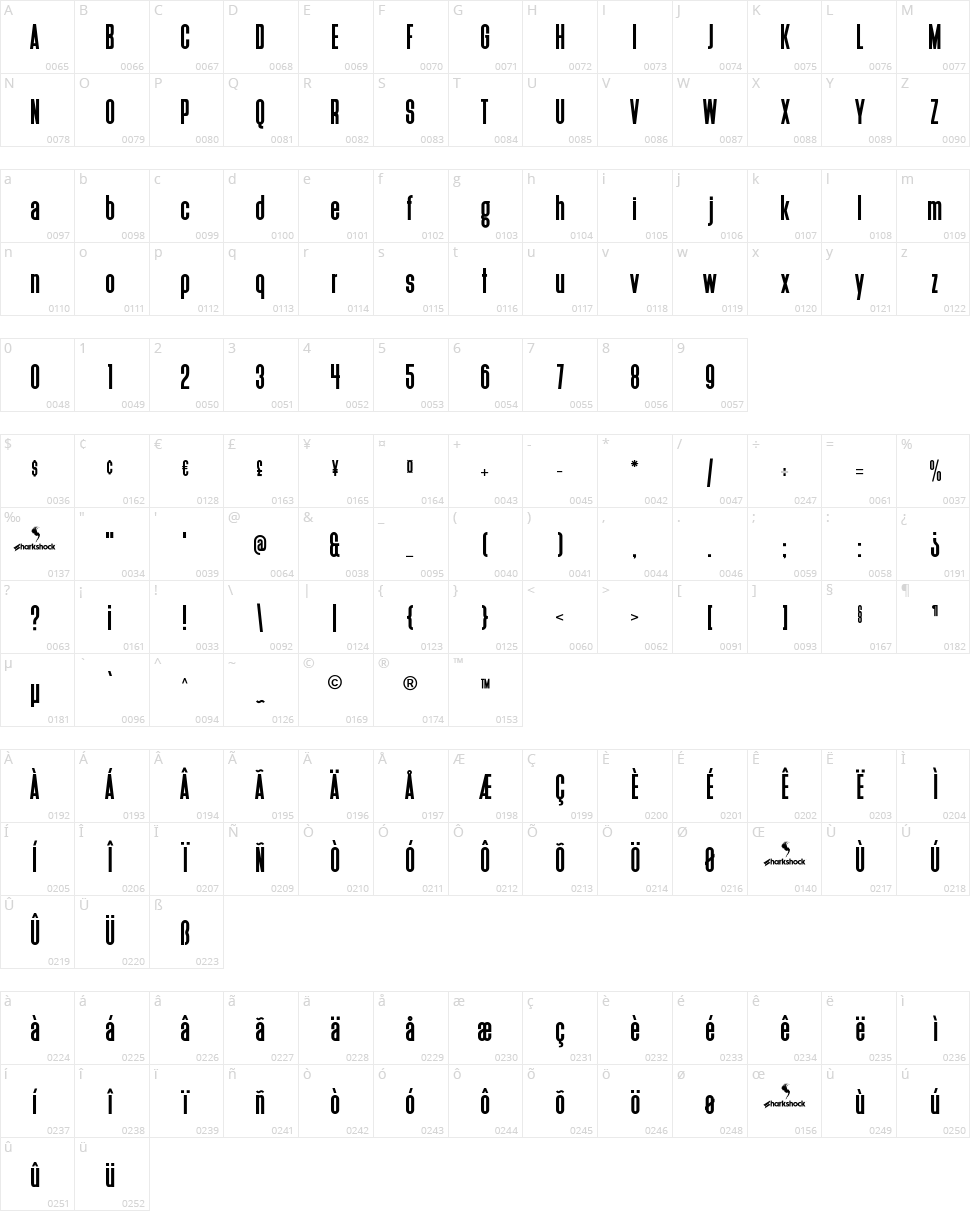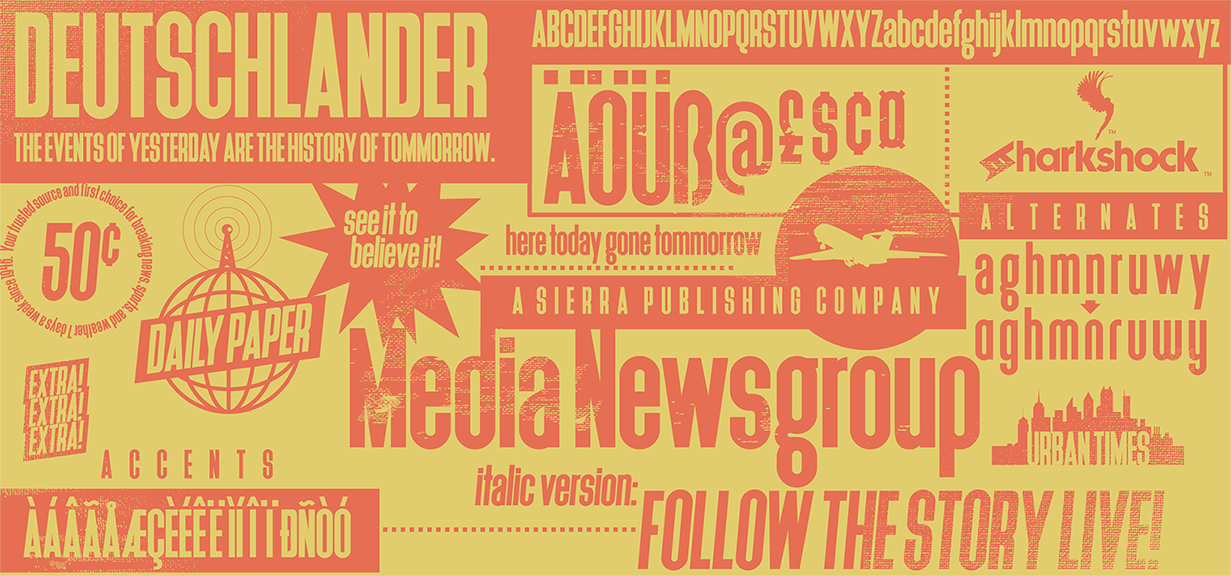
Deutschlander
Hi everyone, and thanks for having a look. Tall, dark, and handsome Deutschlander will provide you with a clean typeface to insert when space is limited. The vertical nature of this extra condensed sans serif adds real estate to your subtitles and logos. Add Deutchlander to the bottom of a movie